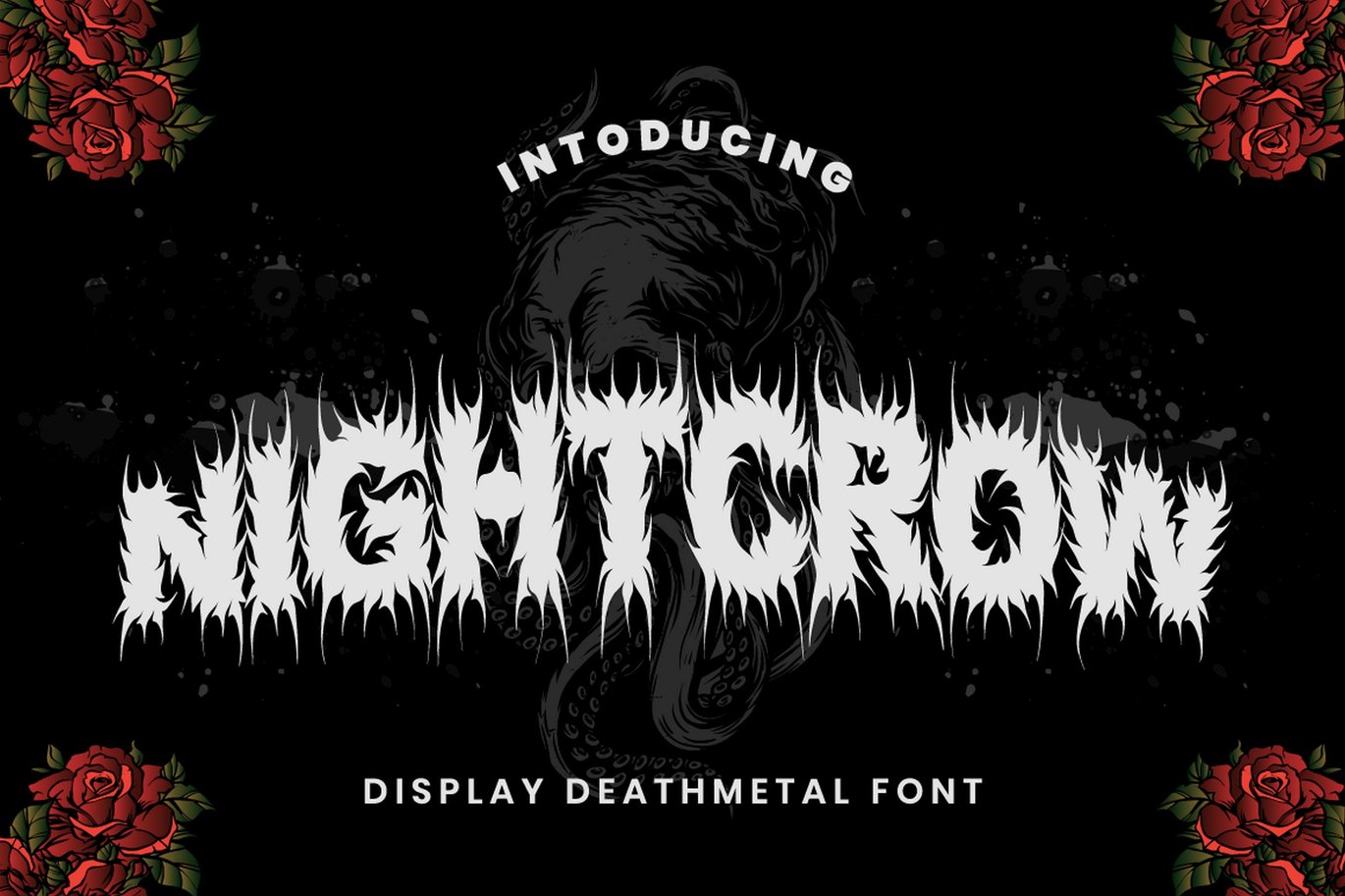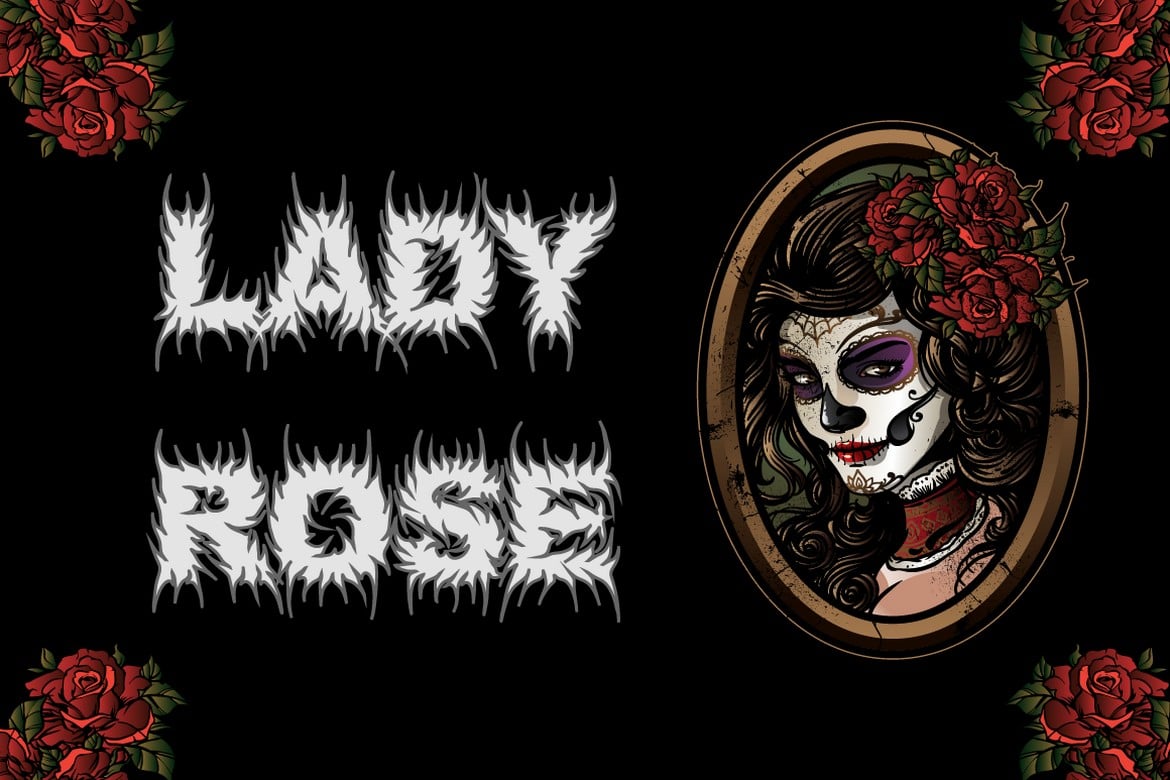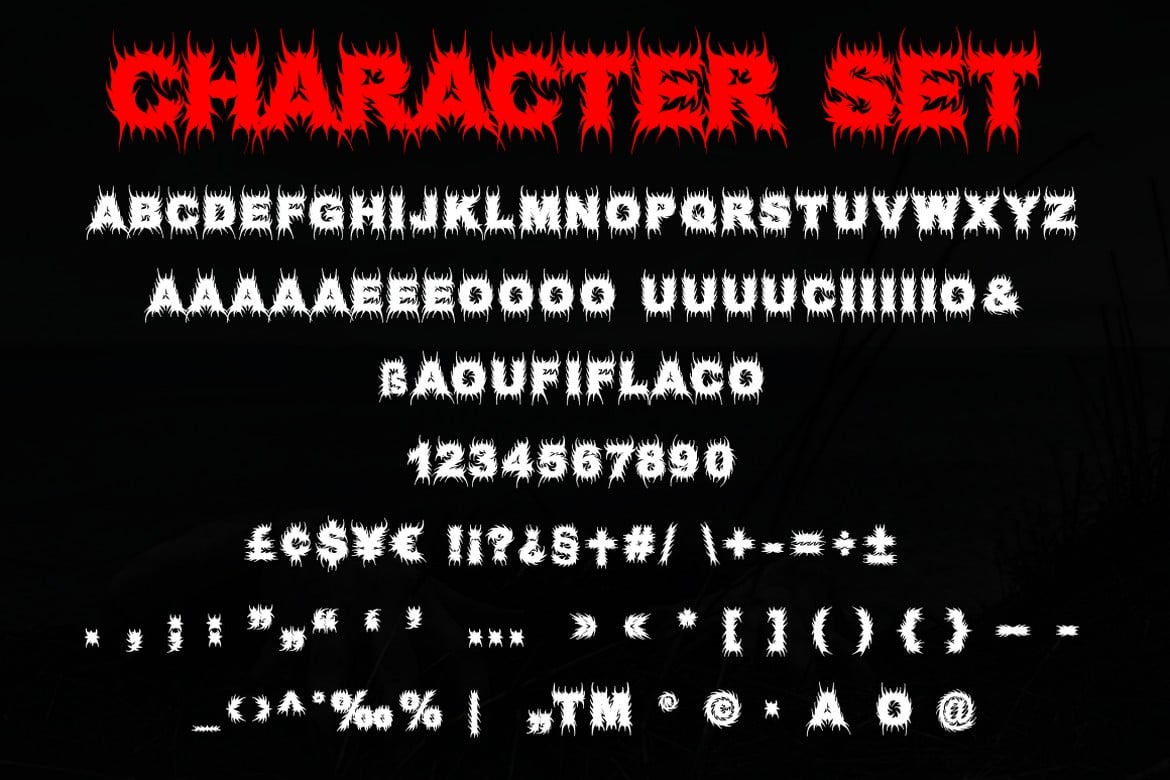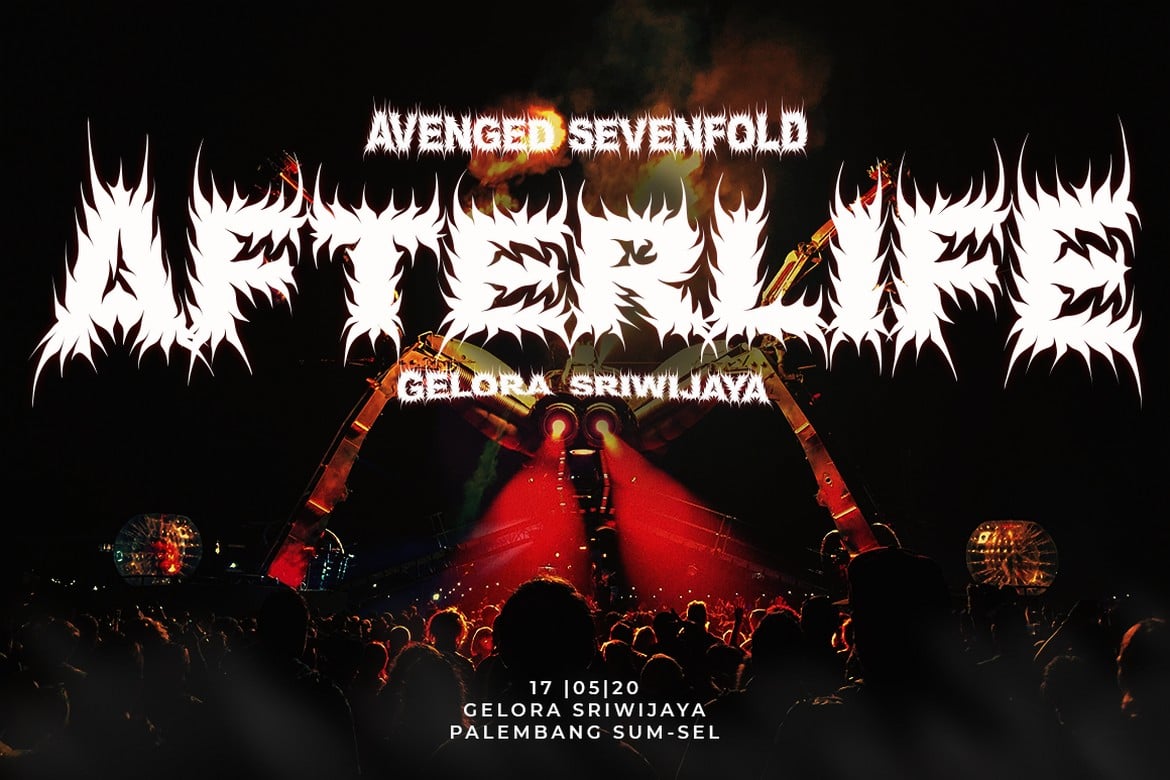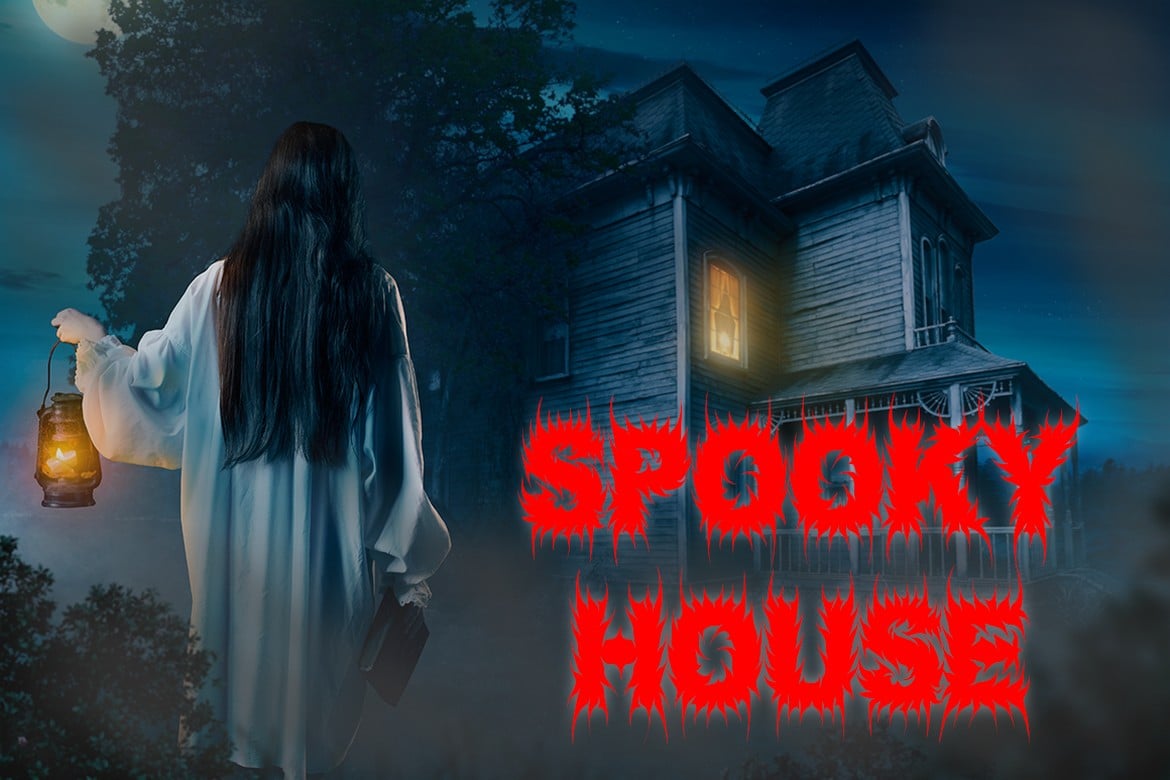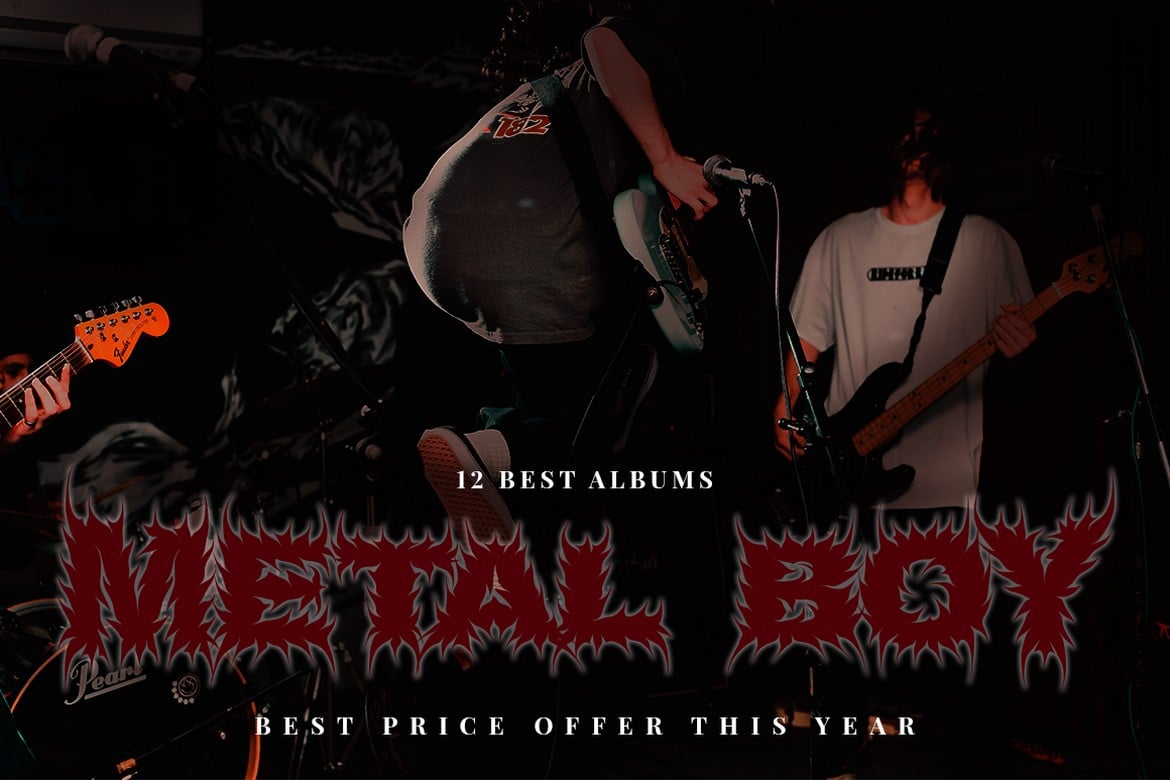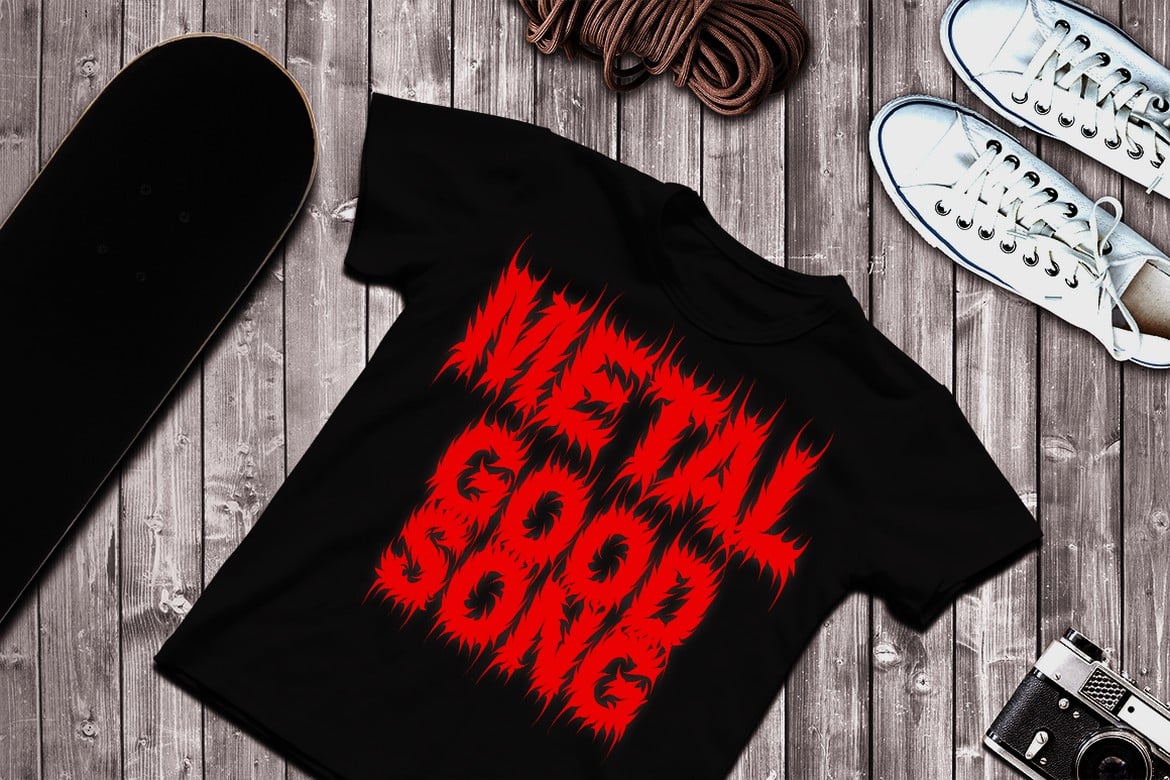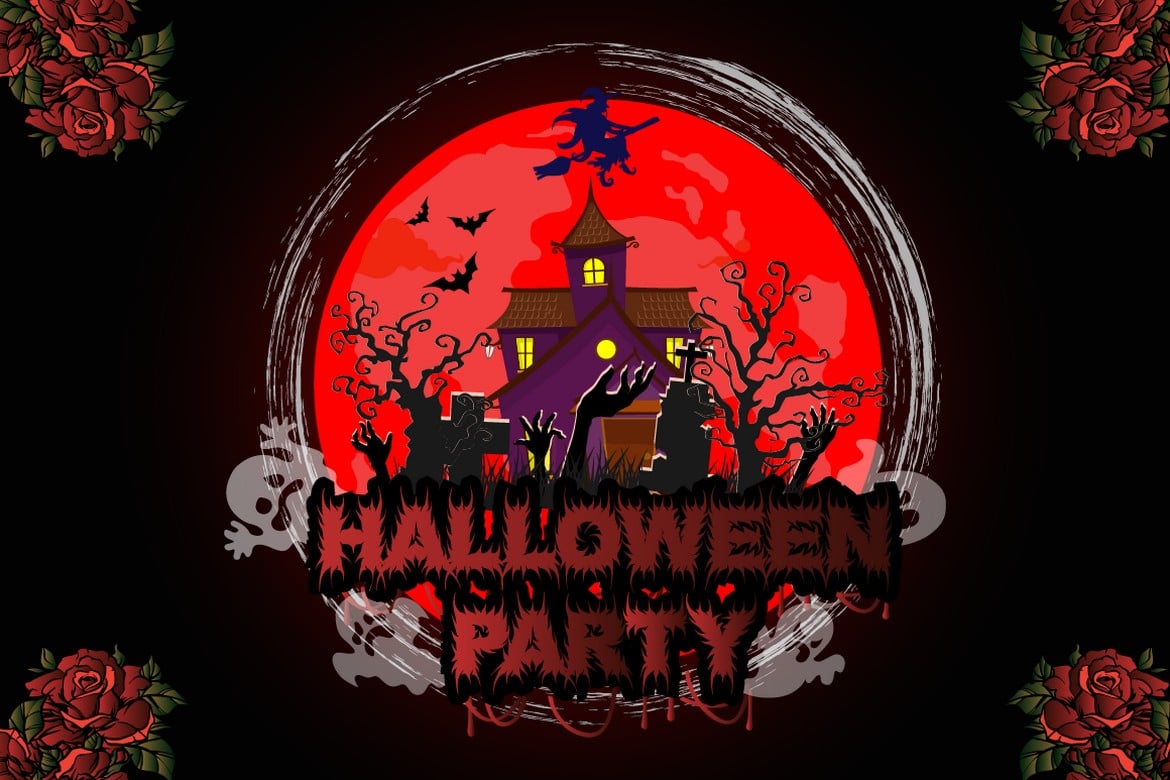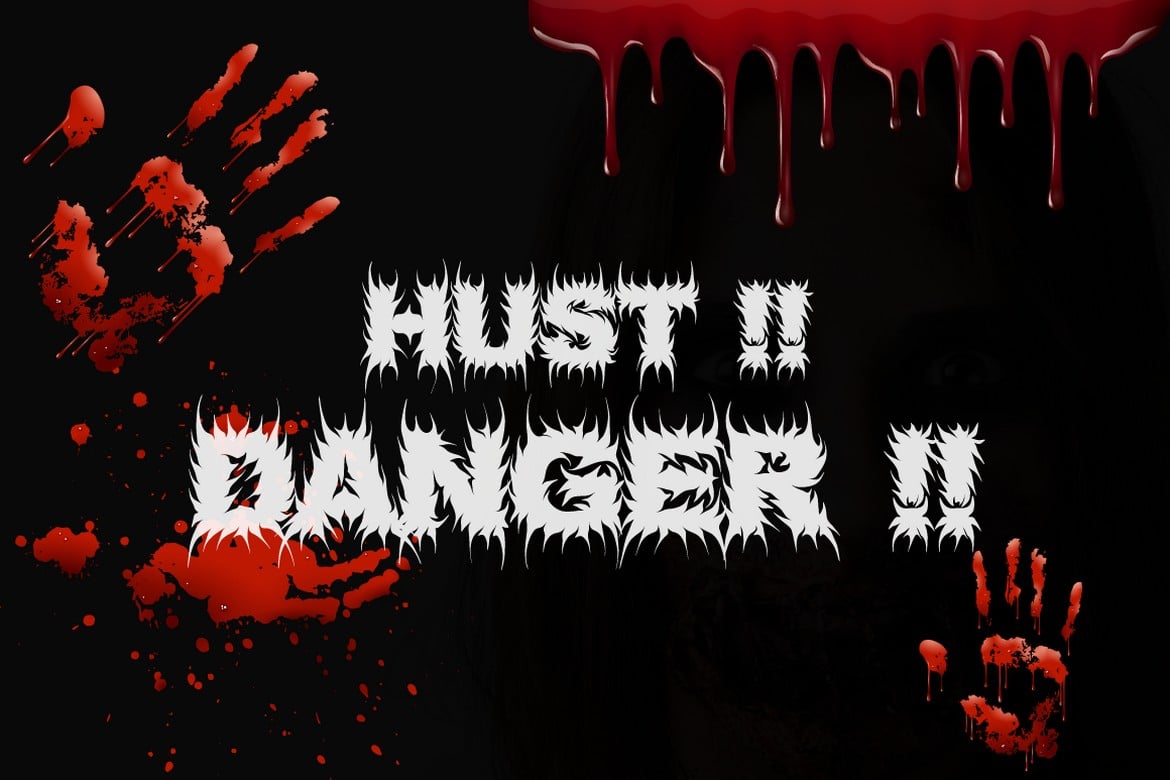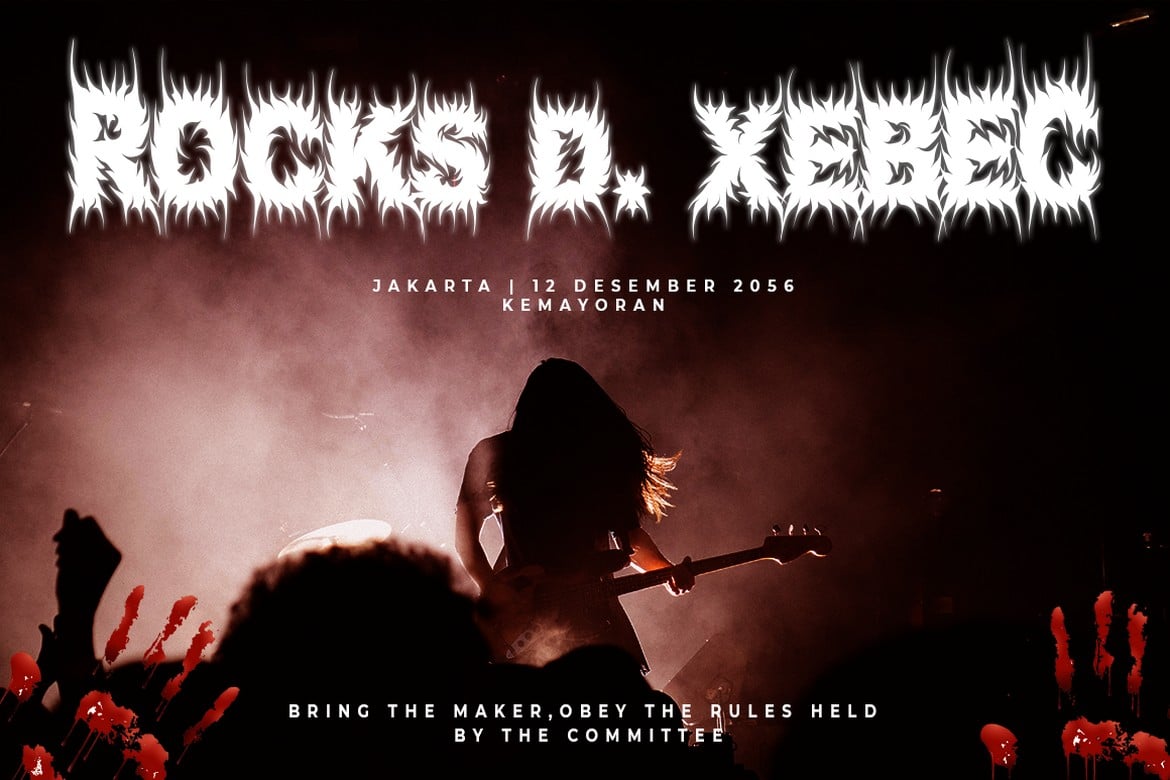
NightCrow – Deathmetal Font
Introducing Night Crow . A display deathmetal font.
This font is inspired by underground and metal music band logostyle. There are alternate directions of the thorns (right and left), alternate is in lowercase. I purposely made the spines a little so that the font can still be read.
Night Crow is suitable for death metal music, underground, hardcore music, blackletter, death metal logo design, clothing, logos, music covers, posters or other designs with the theme deathmetal.
Comes with feature :
- Alternate (LOWERCASE LETTER)
- Number, Punctuation And Symbols